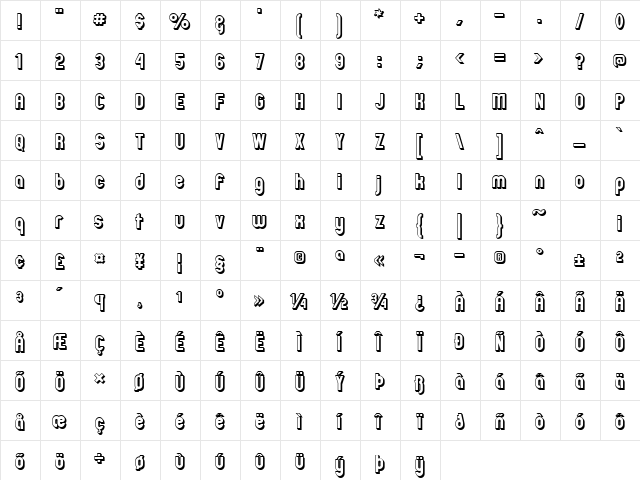
Zillah Modern Offset Outline Regular
Design Context for Zillah Modern Offset Outline Typeface
Zillah Modern Offset Outline brings ornamental detail and strong personality to headlines and identities, where visual impact matters more than quiet functionality.
Font Pairing: Pair with a clean neutral sans-serif for body copy to let Zillah Modern Offset Outline's character lead without overwhelming the composition.
Pro Tip: Treat Zillah Modern Offset Outline as the centrepiece of your typographic hierarchy. One strong heading set in a decorative face can carry an entire layout.